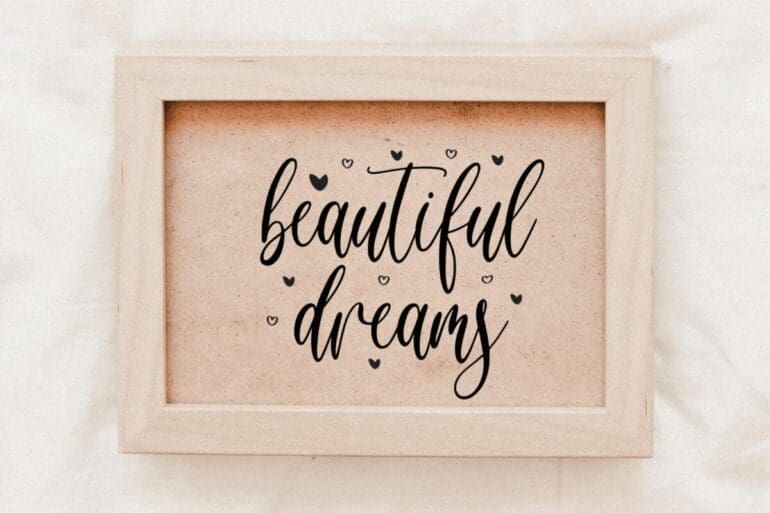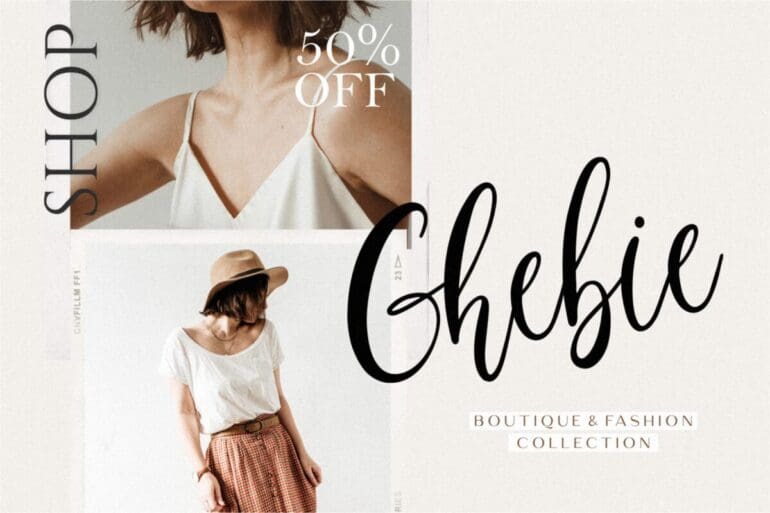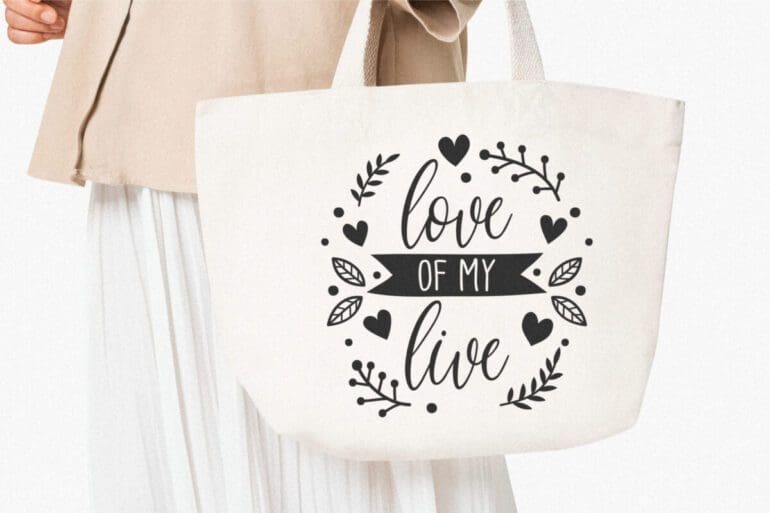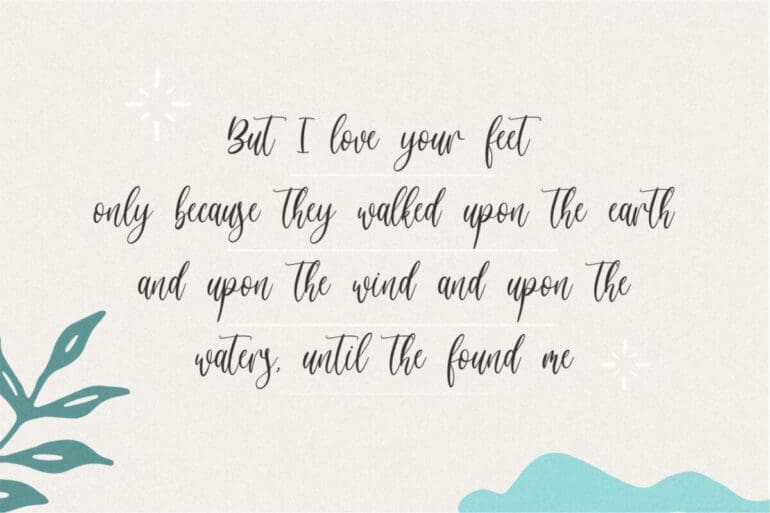
Brittishfeel Font
Brittishfeel is a Modern Script Font. Brittishfeel is perfect for product packaging, branding project, magazine, social media, weddings, or just used to express words above the background.